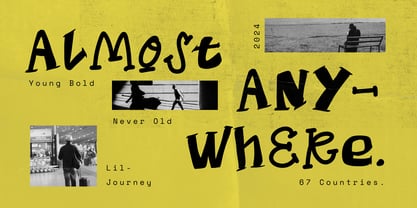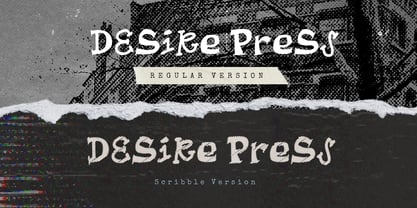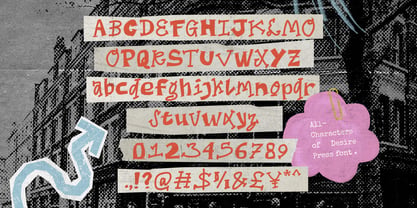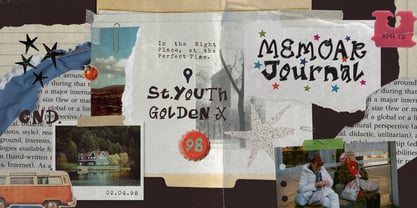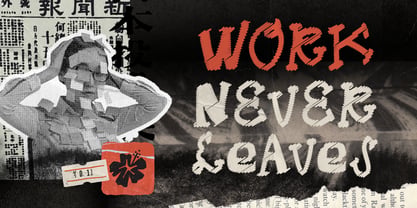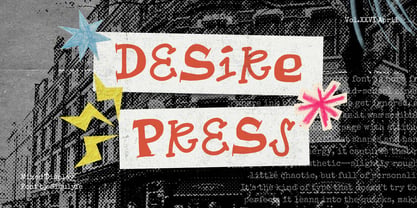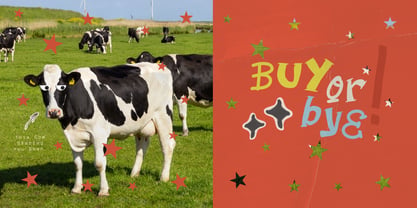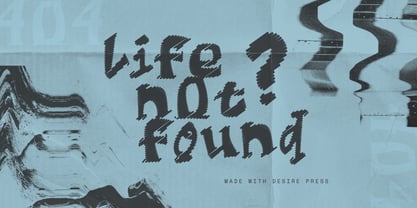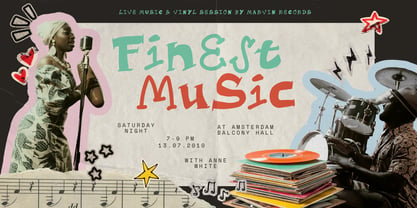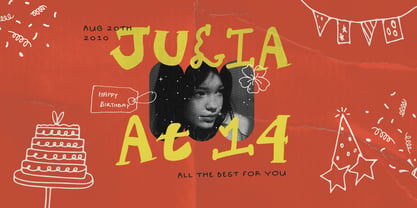
Desire Press
by Sloulyfe Studio
The Desire Press Font Family was designed by Amelia Dian Isnaini and published by Sloulyfe Studio. Desire Press contains 2 styles and family package options. More about this family
Desire Press bursts in with gritty, mixed letterforms that follow zero rules. The shapes feel bold yet quirky, slightly offbeat, with that messy charm and playful rebel edge—like a raw zine style straight from the copy machine. Perfect for posters, indie branding, scrapbook pages, album covers, and anything that needs wild, chaotic energy with a hint of fun, where imperfection is the whole point.
Designers: Amelia Dian Isnaini
Foundry: Sloulyfe Studio